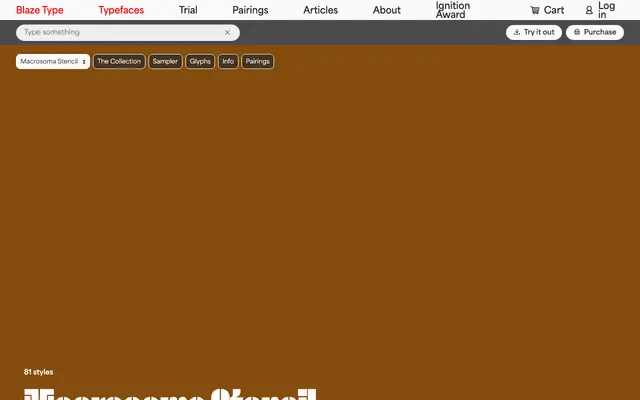
Macrosoma Stencil
A stencil grotesque spanning nine width variants and nine weights, giving 81 styles across a spectrum from Ultra Condensed to Wide.
Built as a stencil counterpart to the Macrosoma grotesque, the family runs from Ultra Condensed to Wide with nine width variants, each carrying nine weights from Hairline to Extrabold. The stencil cuts are consistent across all widths, making the system suited to poster work, packaging and any context where industrial texture is wanted at scale. The absence of italics keeps the focus squarely on width and weight as the primary axes of contrast.
A stencil variant of the Macrosoma grotesque family, defined by interrupted strokes that create the characteristic stencil cut. The display category applies given the stencil treatment and the range of widths from Ultra Condensed to Wide, which point toward poster and headline use.